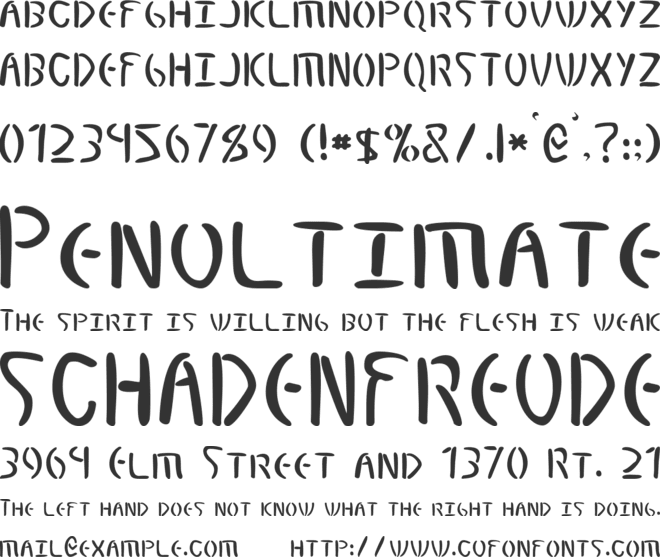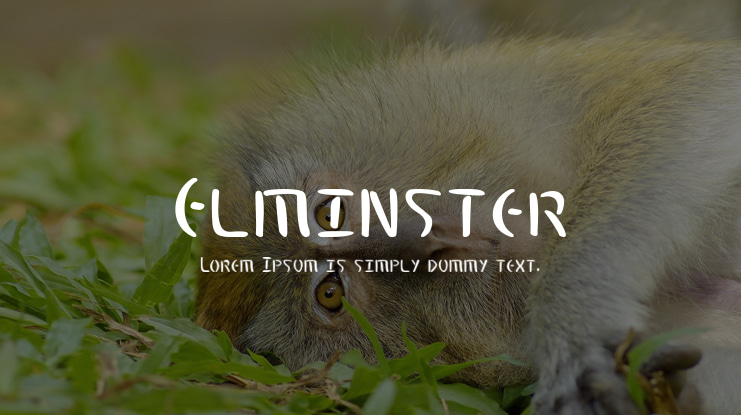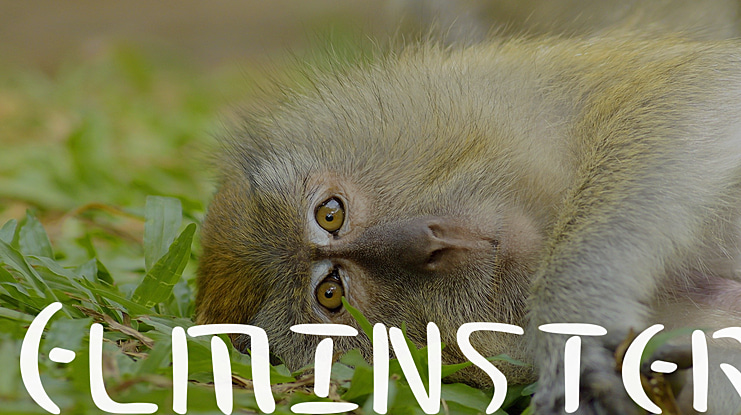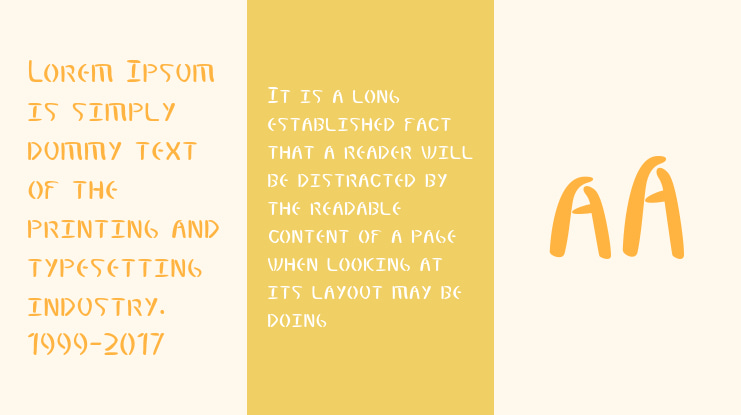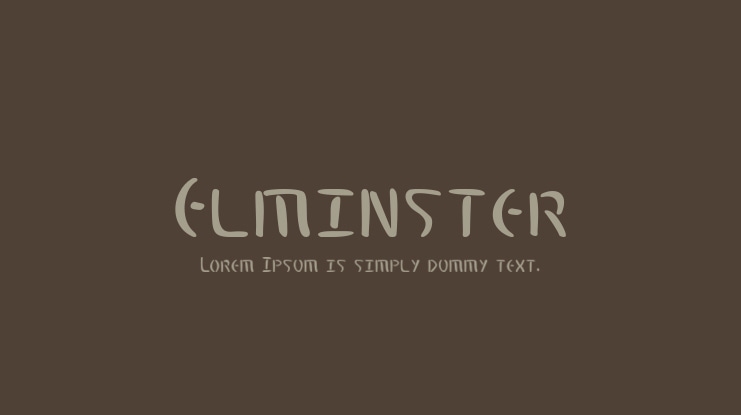
Elminster Font
Neale Davidson
Elminster is a English-readable ‘ancient rune’ script based on the title logo of TSR’s classic Forgotten Realms setting for their second-edition Dungeons and Dragons game. This face Includes full alphabet, extended punctuation, and euro.